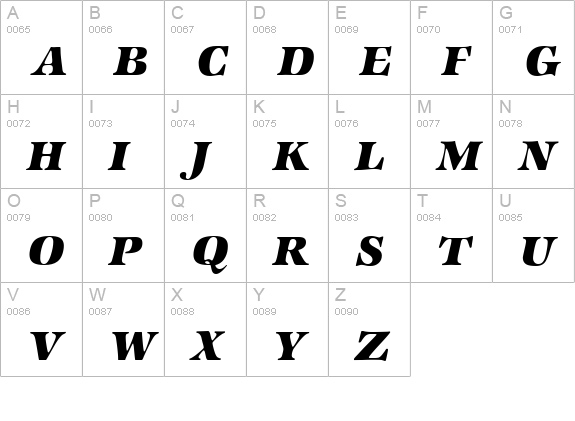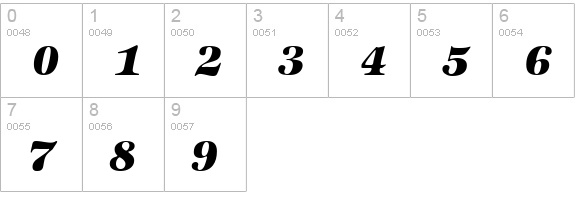
ZabriskieInternational-Heavy-Italic is a heavy, high-impact, italic variant in the ZabriskieInternational typeface family \xE2\x80\x94 well suited to high-impact headlines, posters, and display advertising.
ZabriskieInternational-Heavy-Italic font is a bold and dynamic typeface that commands attention with its distinctively heavy weight and slanted italic design. Perfect for making a bold statement in your designs, this font exudes strength and modernity. The sleek lines and sharp angles of ZabriskieInternational-Heavy-Italic font make it ideal for headlines, titles, and branding materials that require a strong visual impact. Its unique italic style adds a touch of sophistication and elegance to any project. Best of all, ZabriskieInternational-Heavy-Italic font is available for free download at FontsMarket.com. This means you can easily access this powerful typeface to elevate your design projects without any cost. Don't miss out on the opportunity to enhance your work with the striking presence of ZabriskieInternational-Heavy-Italic font.